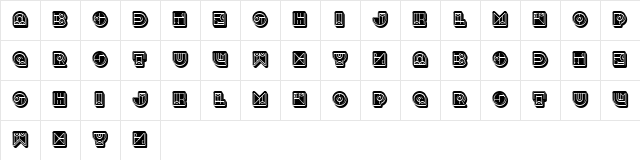
Bonjour 3D Regular
Design Context for Bonjour 3D
Bonjour 3D is a composed and adaptable typeface that performs quietly and consistently across a wide range of design contexts.
Pro Tip: Use Bonjour 3D in both headline and body roles to test its range before committing to a single application.